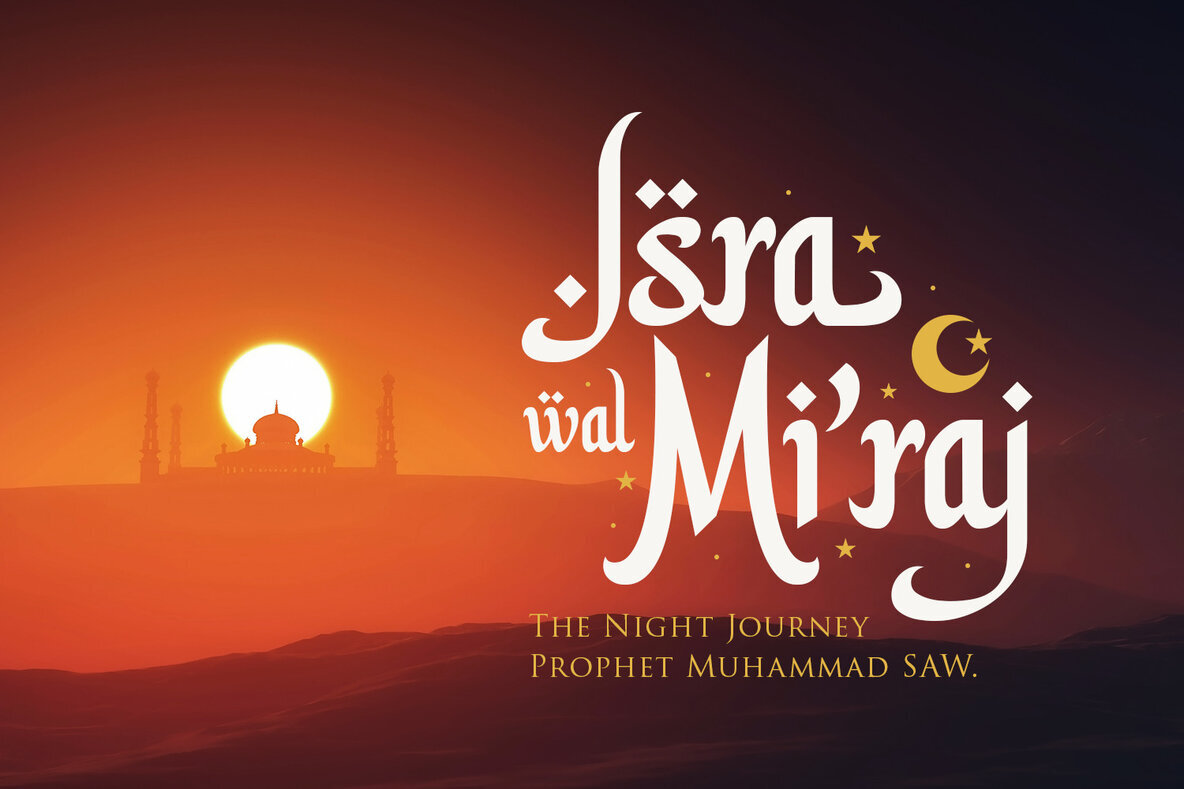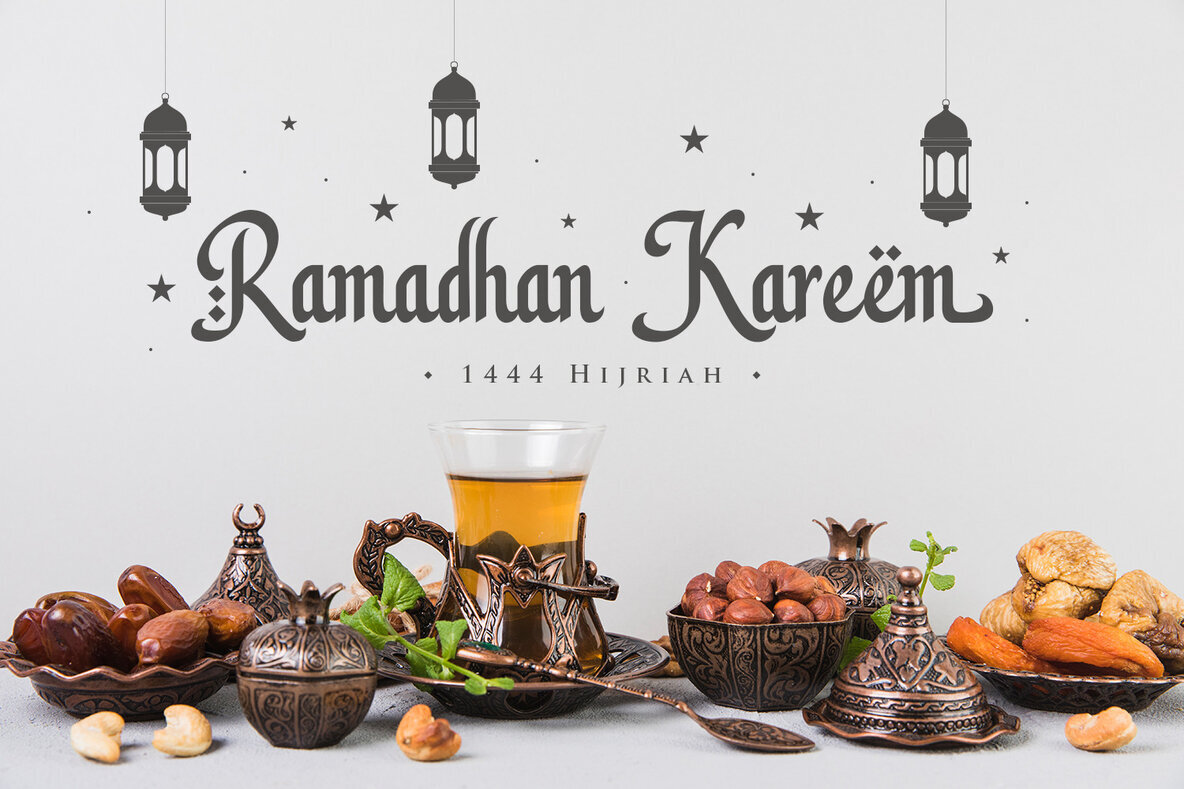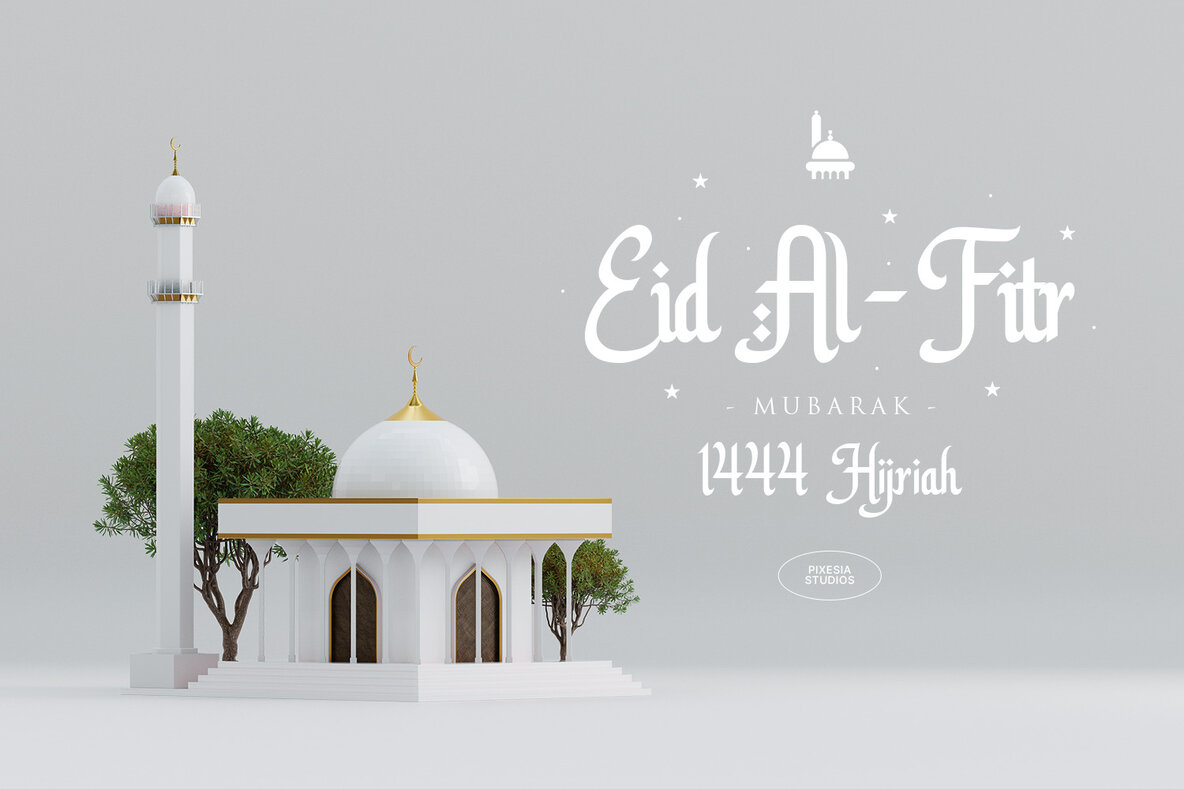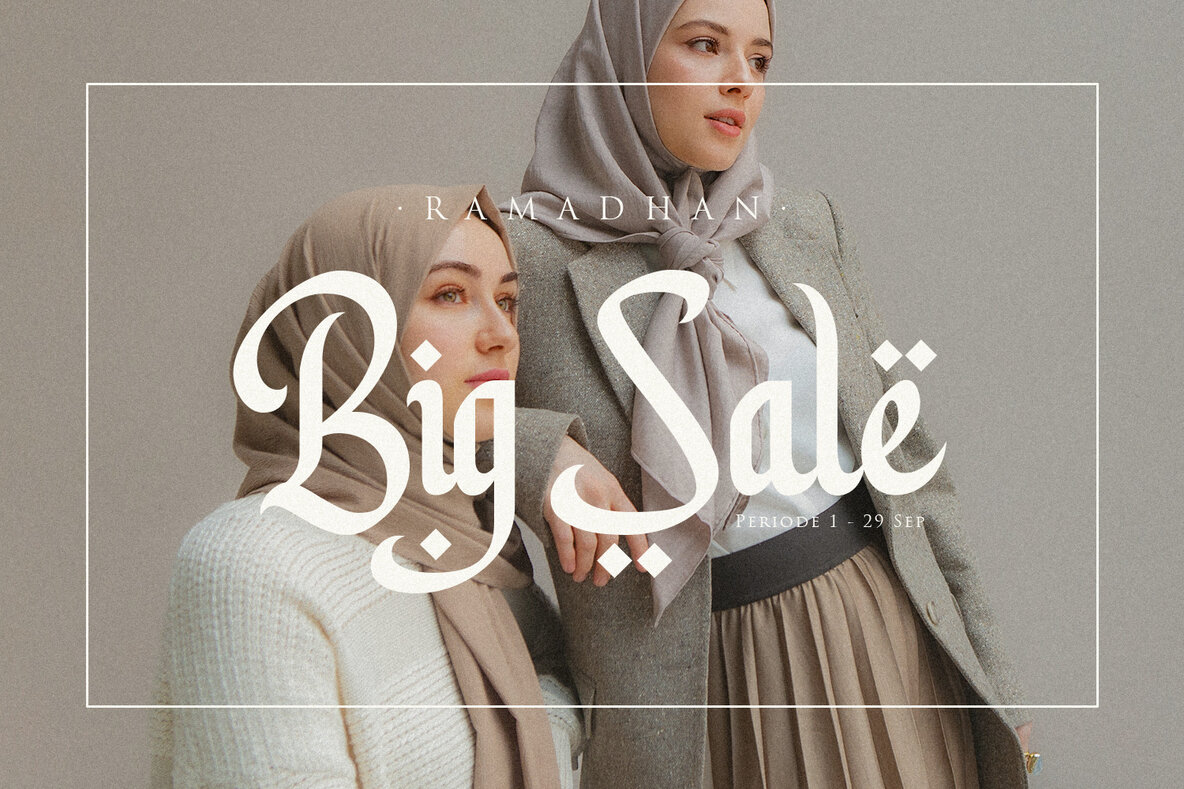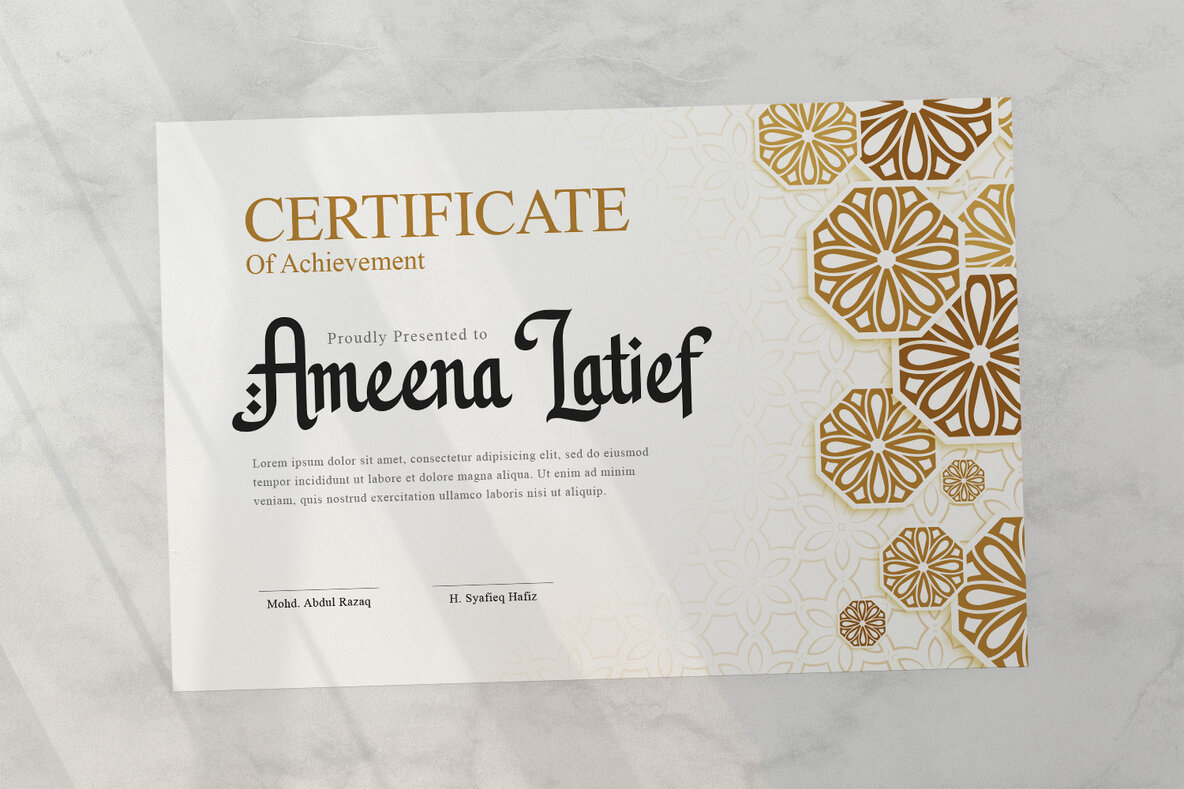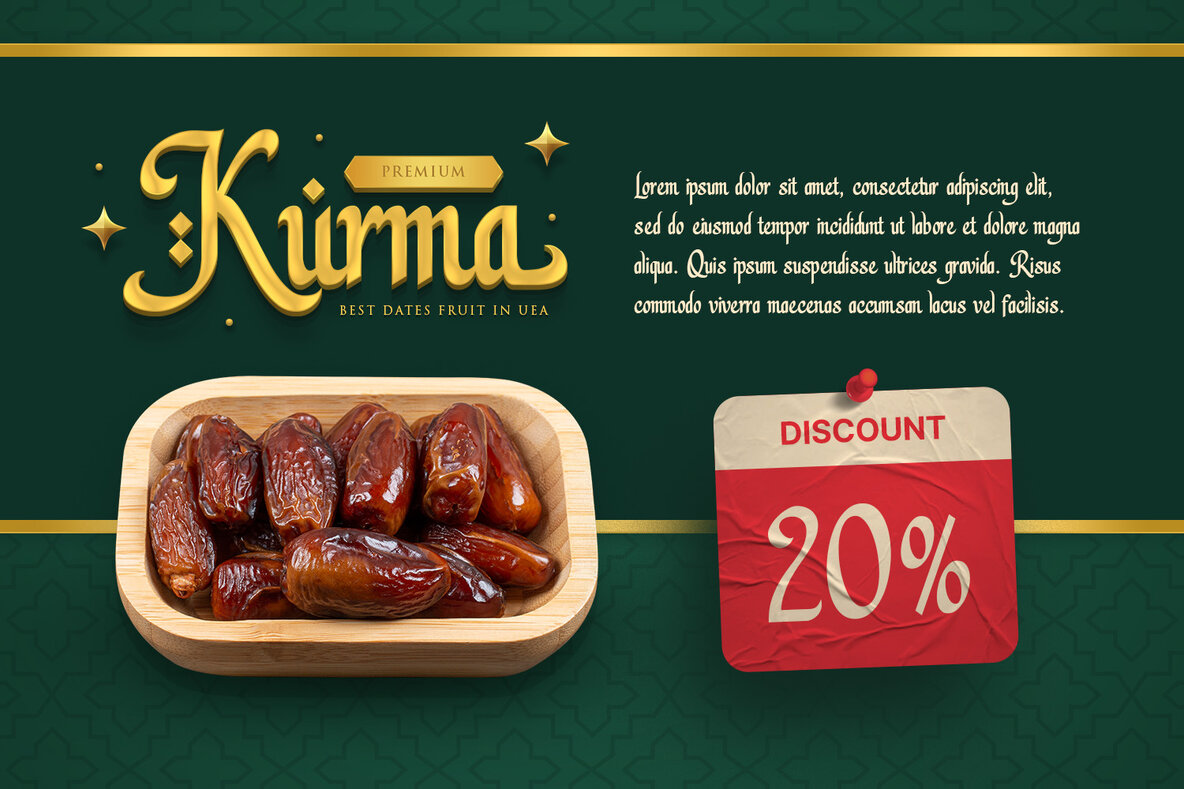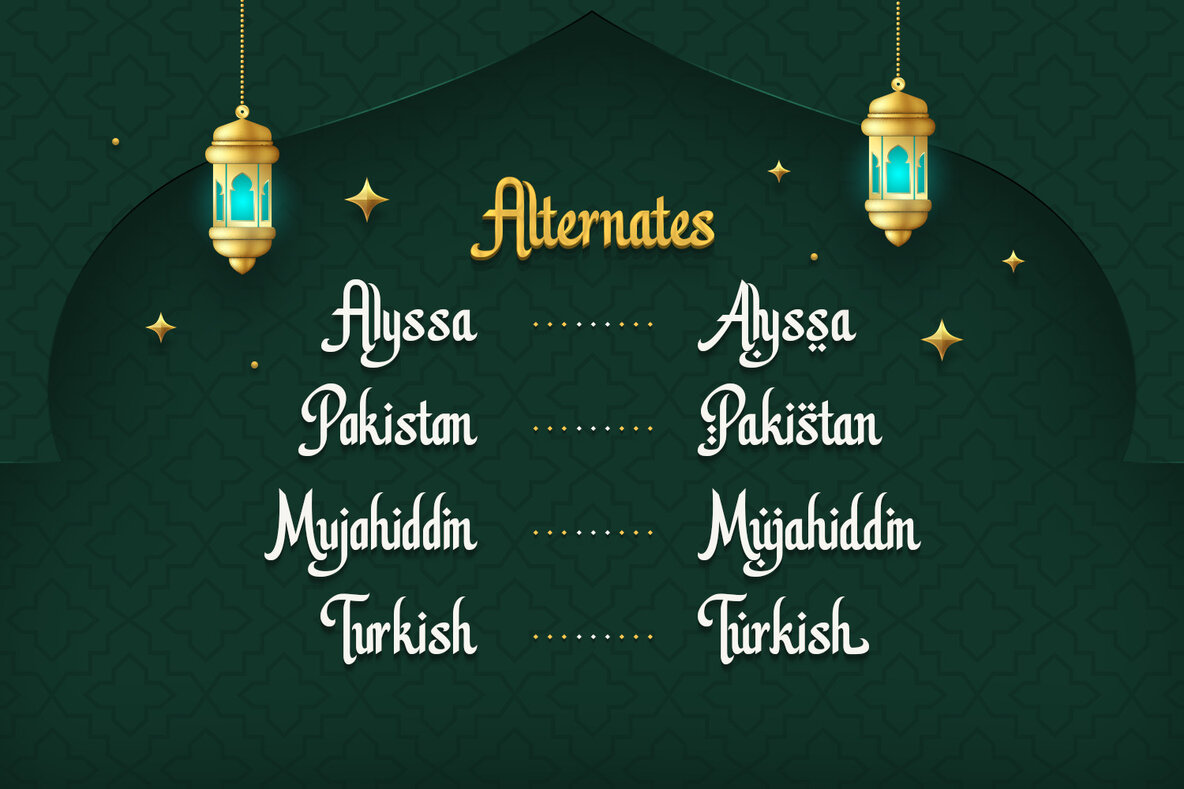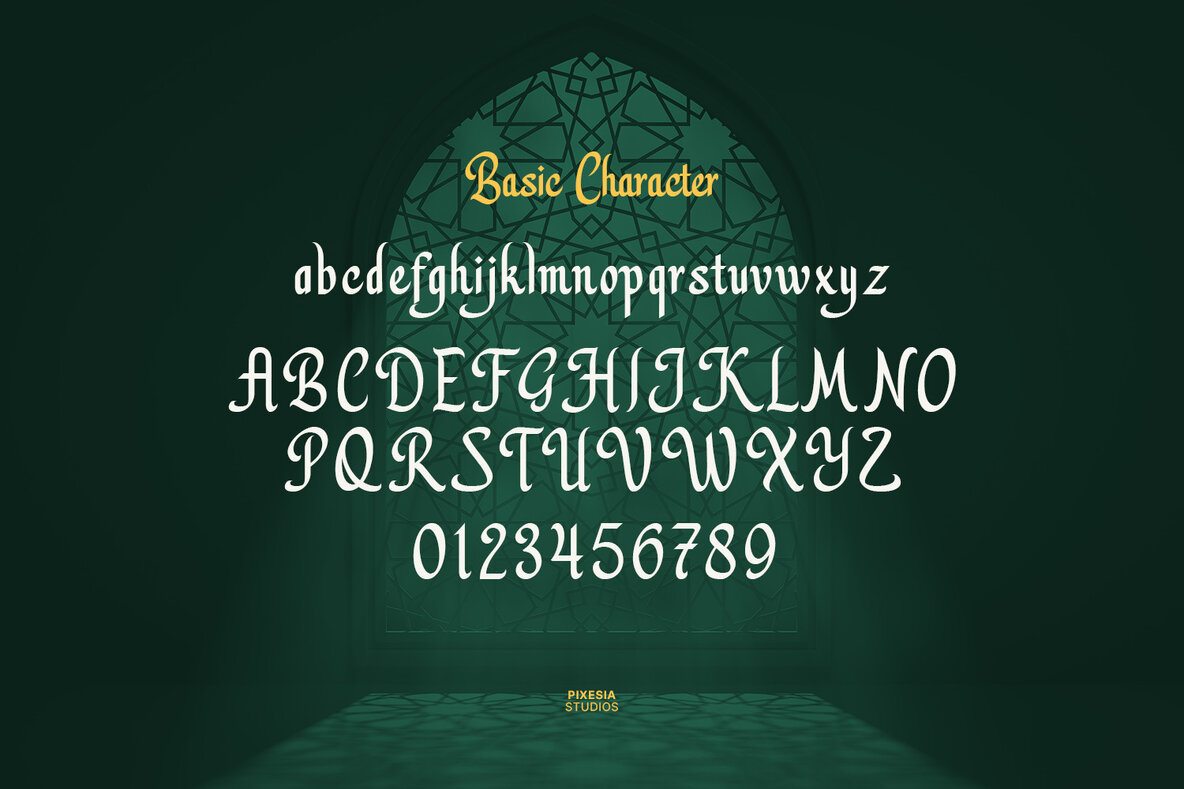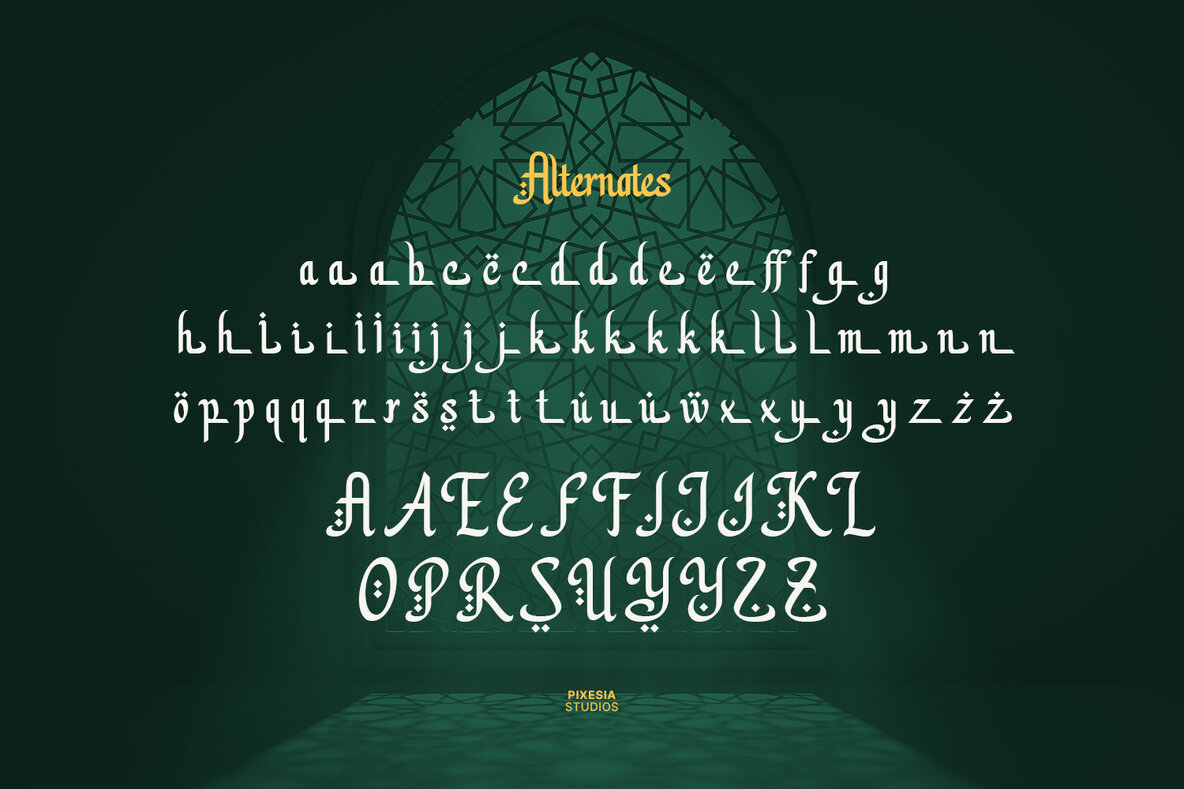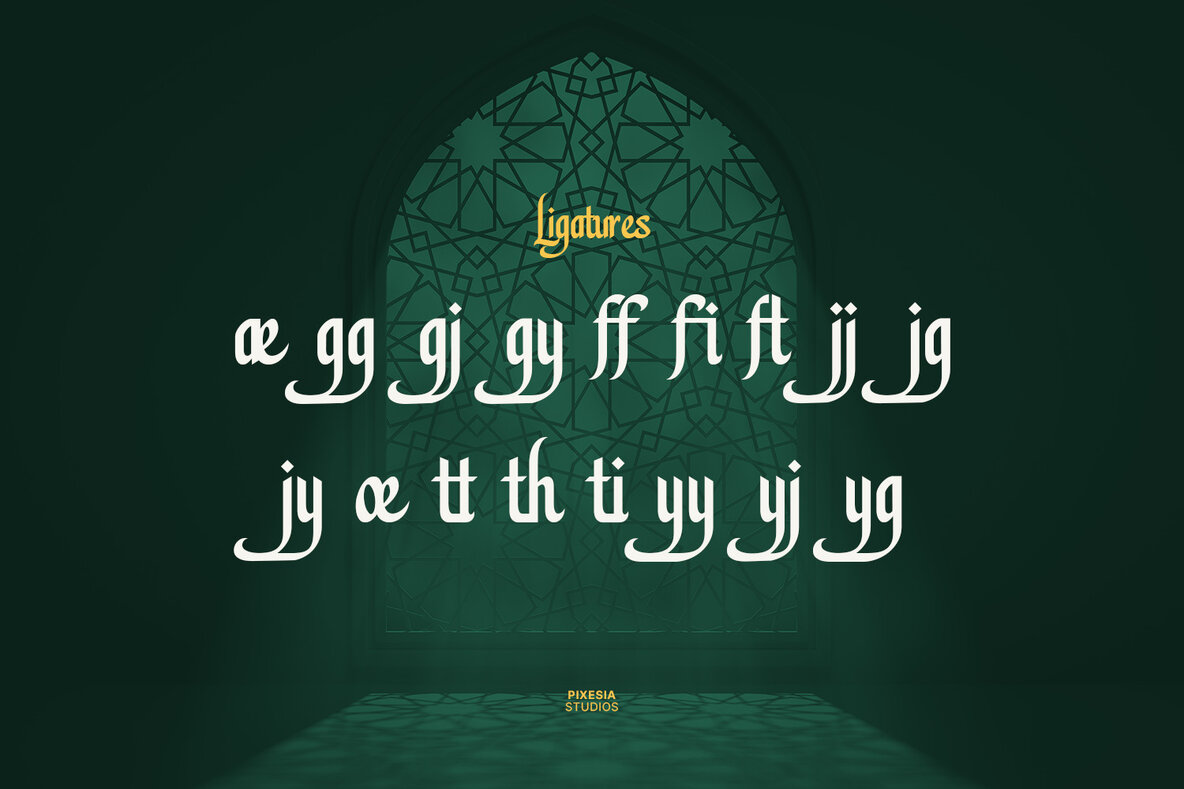
Hello Ramadhan Font
Hello Ramadhan is a beautiful display font with an Arabic style. This font adds an authentic Middle Eastern touch to any text, making it perfect for design projects that require a unique and cultural aesthetic. Whether you're working on a logo, website, or poster, Hello Ramadhan will bring a touch of authenticity and charm to your design. So if you want to add a touch of the exotic to your projects such as logo designs, identities, product labels, fashion, magazines and more, give Hello Ramadhan a try today